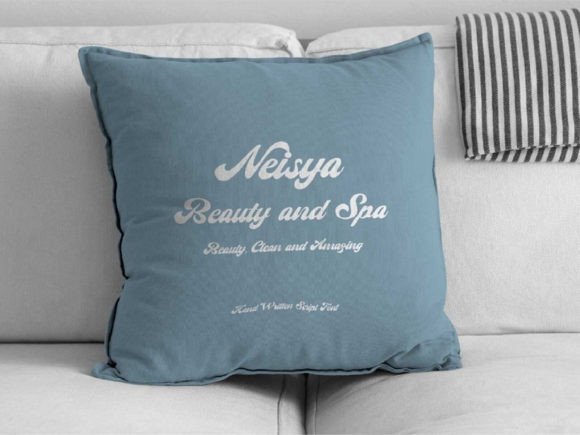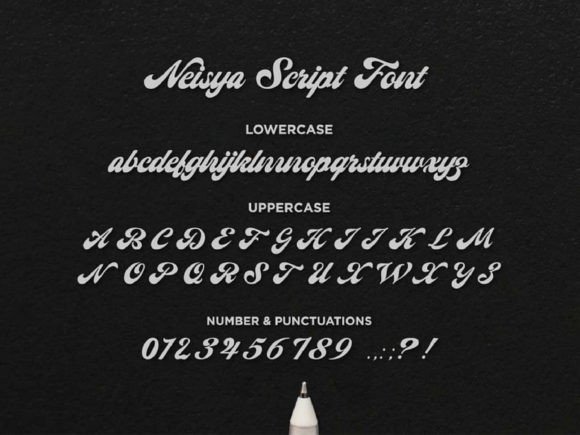
Neisya Font – Free Download
Introduction to Neisya Font
“Neisya” a Handwritten Font.
Use this for any project to upgrade your value Clean and Beauty Handwritten Font Makes your appearance to look fresh, elegant, and stylish.
Key Features of Neisya Font
Why Choose Neisya Font?
Neisya Font offers exceptional quality and versatility, making it a valuable addition to your design toolkit. Whether you’re creating for personal projects or commercial use, Neisya Font delivers professional results.